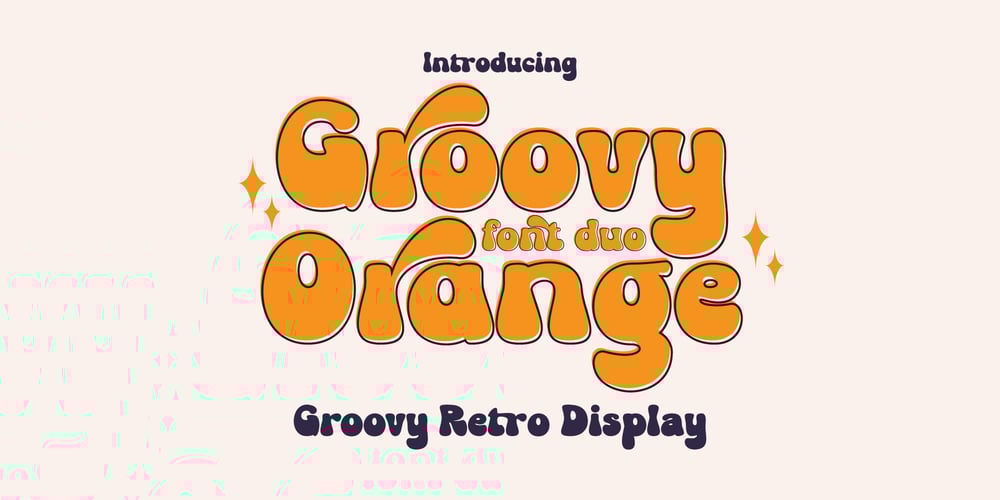
Groovy Orange Font Family was designed by Dzulka Elfira and published by Tebaltipis Studio. Groovy Orange contains 2 styles and family package options. Groovy Orange feels playfully nostalgic and delivers an incredible vintage retro aesthetic. Use this display font to add that special retro touch to any design idea you can think of!. Masterfully designed to become a true favorite, this font has the potential to bring each of your creative ideas to the highest level!WHAT’S YOU GET ? Unique Letterforms Works on PC & Mac Simple Installations Accessible in the Adobe Illustrator, Adobe Photoshop, Microsoft Word Fully accessible without additional design software. I really hope you’ll get pleasure using Groovy Orange and it will be perfect addition to your font collection! Contact me with an inbox message If you have any question. Thank you! Happy Creating.